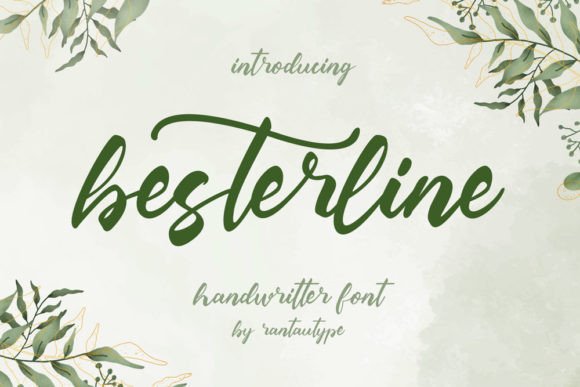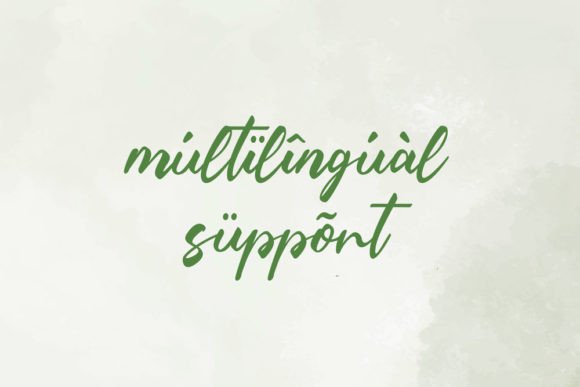
About Besterline Font
Besterline is a catchy and stylish handwritten font. It is PUA encoded which means you can access all of the glyphs and swashes with ease! This font will add an eye-catching appeal to your logo designs, brand imagery, handwritten quotes, product packaging, merchandise & social media posts.